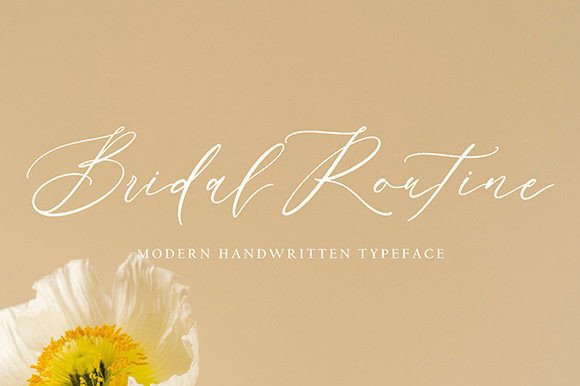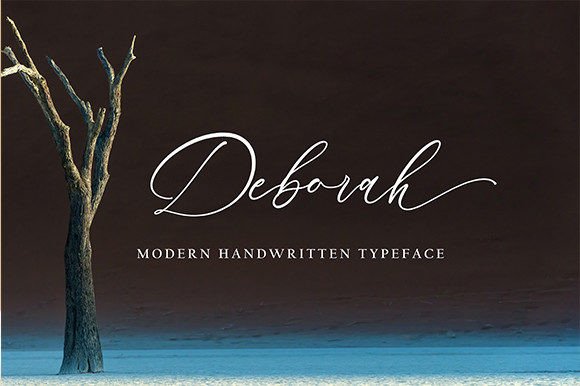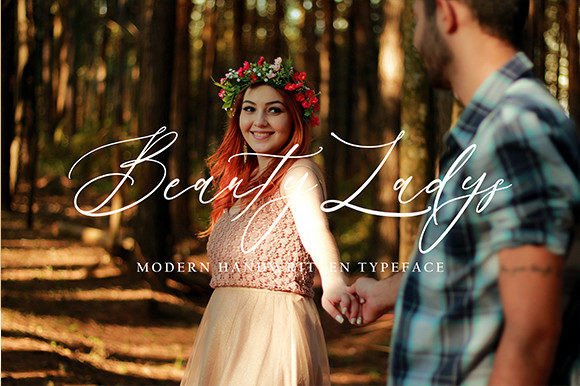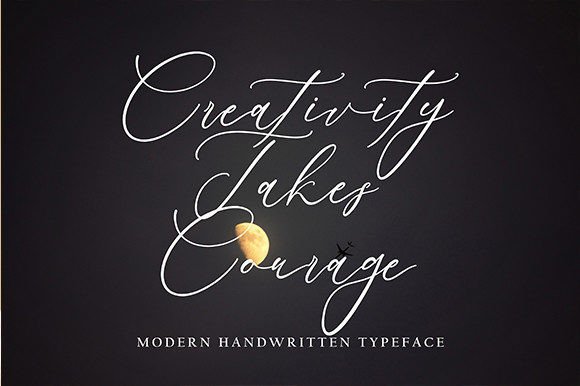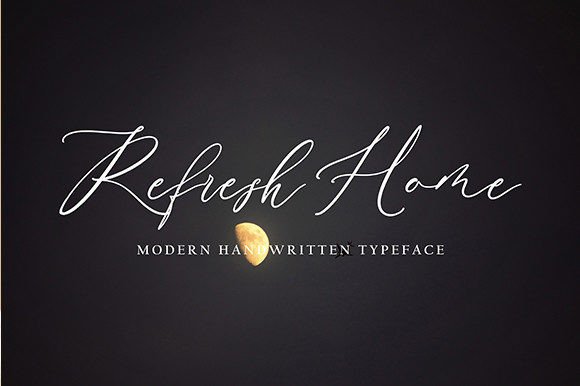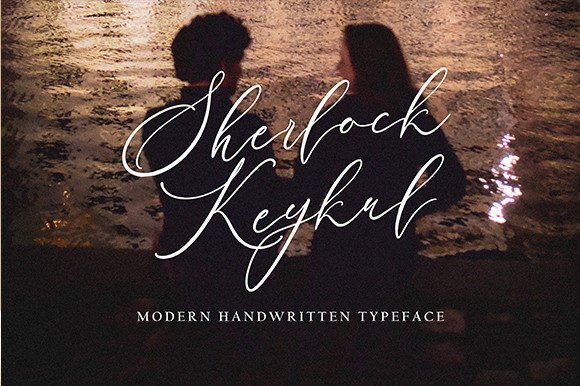
Bringing Your Designs to Life with Amleson Beyitrra Font
Have you ever been stuck on a design project, searching for the perfect font to give it that extra oomph? You’re not alone. As creatives, we know the struggle of trying to convey our vision through the perfect combination of typography and imagery.
Enter the Amleson Beyitrra Font – a stunning, handwritten font that brings a touch of elegance and sophistication to any design. This beautiful font is perfect for creating eye-catching logos, branding, and quotes that leave a lasting impression. With every letter meticulously crafted, the Amleson Beyitrra Font is a valuable asset for designers looking to elevate their work.
Amleson Beyitrra Font Key Features
- Font Family: Amleson Beyitrra is a unique and stylish font family, available in multiple weights and styles.
- Unique Characteristics: Amleson Beyitrra features a distinctive and elegant design, with unique letterforms and a high level of detail, making it perfect for use in creative and design-focused projects.
Amleson Beyitrra Font Review
I’ve had the chance to work with the Amleson Beyitrra Font, and I must say it’s a unique addition to any design project. ✨ One of the things that stands out to me is the font’s versatility. It’s suitable for both modern and traditional designs, making it a great choice for a wide range of applications.
Another thing I like about the Amleson Beyitrra Font is its high-quality design. ✨ The font’s intricate details and ornate features give it a level of sophistication that’s hard to find in other fonts. Additionally, the font’s high x-height makes it highly legible, even at smaller sizes.
- ⚠️ Limited character set: The Amleson Beyitrra Font has a relatively small character set, which may limit its use in certain applications.
Overall, the Amleson Beyitrra Font is a solid choice for designers looking for a unique and high-quality font. While it may have some limitations, its versatility and sophistication make it a great addition to any design project.
Getting the Most Out of the Amleson Beyitrra Font
To get the most out of the Amleson Beyitrra Font, use it in combination with bold or italic text to add emphasis and create visual interest. Experiment with different font sizes and colors to create a unique visual style.
The Amleson Beyitrra Font is ideal for use in creative projects, such as:
- Graphic design projects
Alternatives to Amleson Beyitrra Font
Great Vibes is a modern, elegant script font that is perfect for creating a sense of luxury and sophistication. It is ideal for use in branding, advertising, and packaging designs. Great Vibes has a similar flair to Amleson Beyitrra Font, but with a more refined and polished look.
Pacifico is a beautiful, handwritten font that evokes a sense of relaxation and tranquility. It is suitable for use in designs that require a casual, friendly tone, such as social media graphics, blog posts, and product labels. Pacifico has a more laid-back feel compared to Amleson Beyitrra Font, but shares a similar organic, handwritten quality.
Carolyna Pro is a elegant, sophisticated font that is perfect for use in high-end designs such as luxury branding, fine art, and high-fashion advertising. It has a similar level of sophistication to Amleson Beyitrra Font, but with a more refined and polished look.